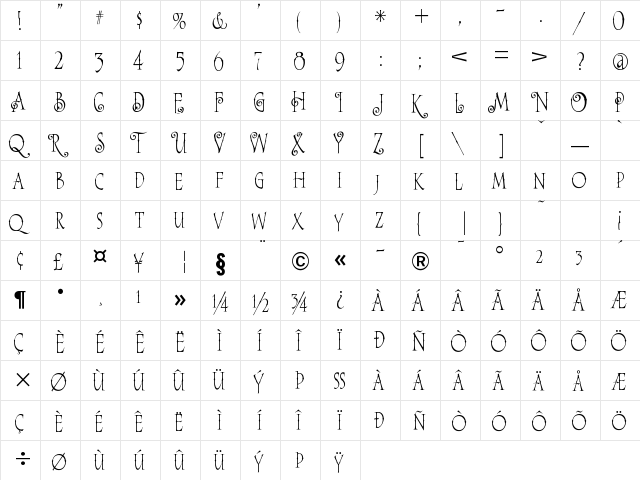
A&S Sarsaparilla Ornamental Regular
| Foundry | SIGNFONTS/Art&Sign Studio |
| Designer | Steve Contreras |
Design Context for A&S Sarsaparilla Ornamental Typeface
A&S Sarsaparilla Ornamental is built around its visual character rather than neutral utility — its distinctive forms are designed to make an impression at display sizes.
Font Pairing: Pair with a clean neutral sans-serif for body copy to let A&S Sarsaparilla Ornamental's character lead without overwhelming the composition.
Pro Tip: Use A&S Sarsaparilla Ornamental exclusively at display sizes — it was designed to be seen, not read at length. Let a neutral companion handle body copy.